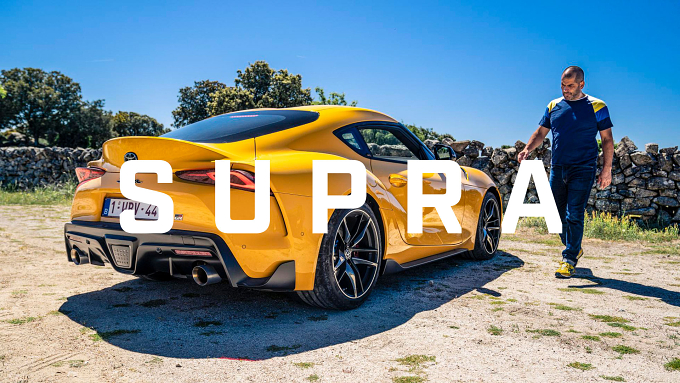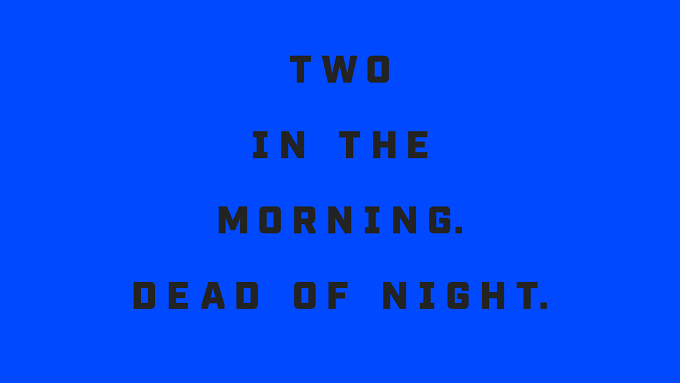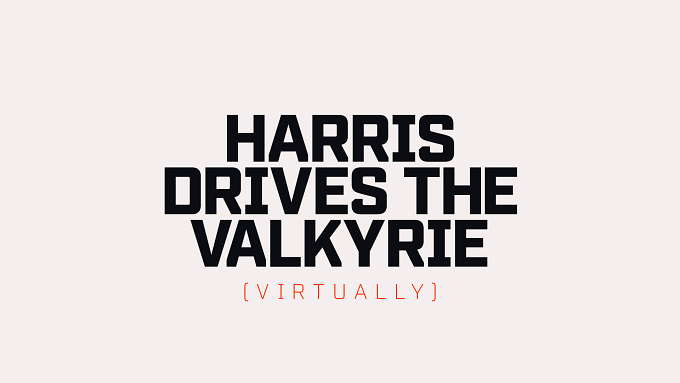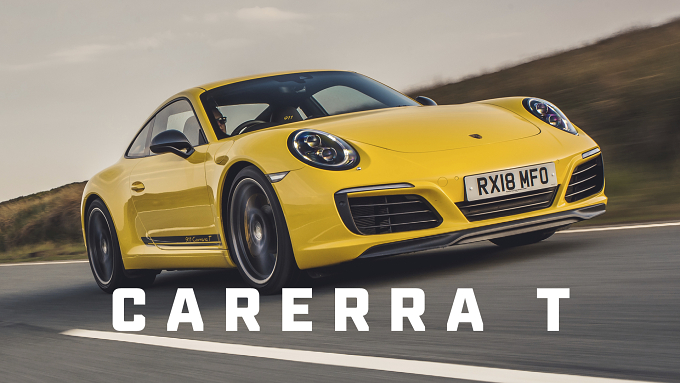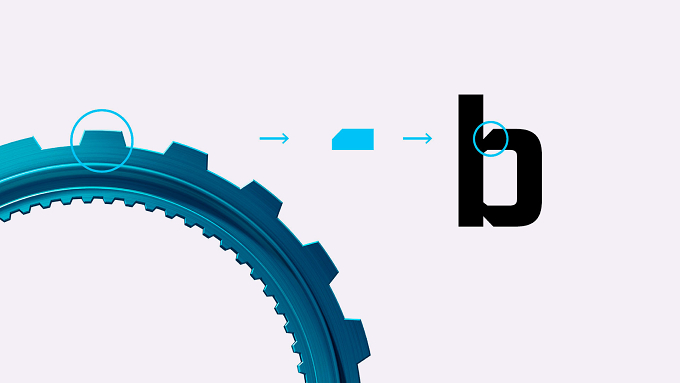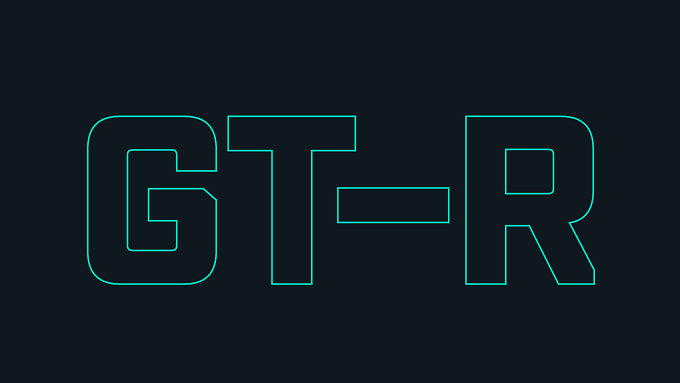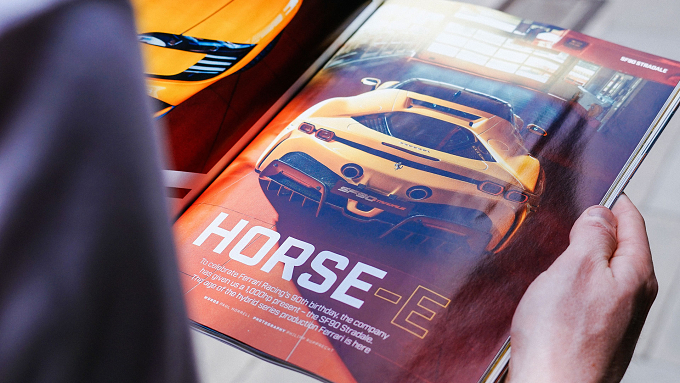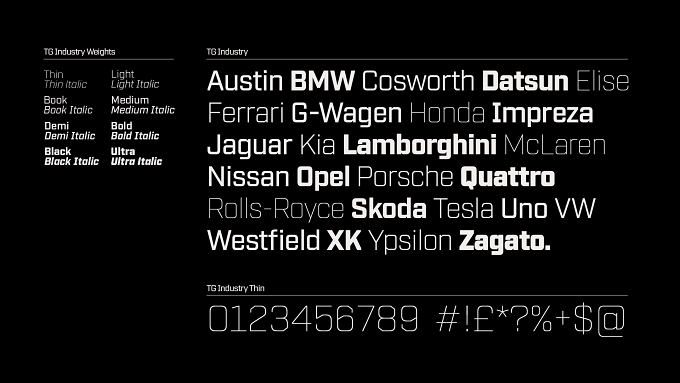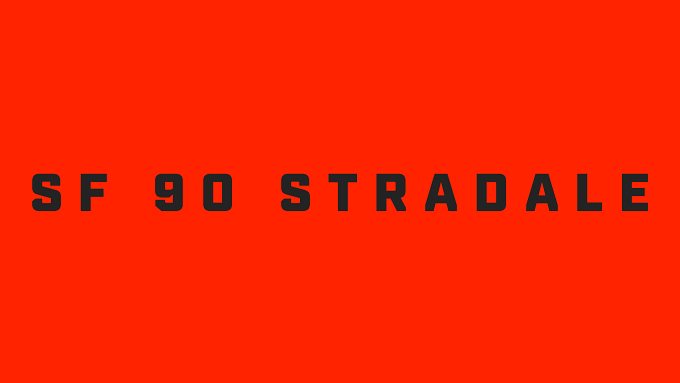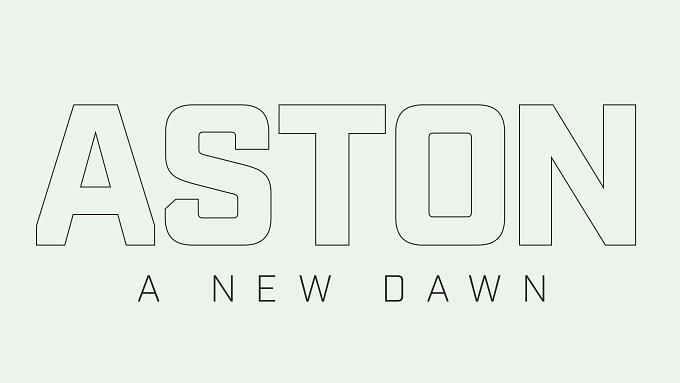
Creating a bespoke typeface inspired by the iconic BBC Top Gear cog.
TG Industry, a global font that signals a new dawn for the Top Gear brand, rolled out across broadcast (TV Show), print (magazine), and will soon roll out across digital (website).
Forged with angular cuts for a precision look.
Forged from angular cuts that reference the mechanical form of the Top Gear cog with aggressive terminals taking influence from the sculpted metallic body surfaces that adorn the modern Hyper-car. Created in close collaboration with Mattox Shuler from Fort Foundry.
Crafted for a vast range of expressions from sleek to refined to cinematic.
A wide range of weights from Thin to Ultra with corresponding italics enables a vast range of tonal expression. At times sleek and reductive with a cinematic quality, yet extremely bold and expressive in other moments, it packs a punch for eye-catching headlines and iconic title sequences. A digital-first typeface crafted to remain highly legible on the smallest of screens.
The result? A typeface that is uniquely Top Gear in attitude and expression that gives the brand a distinct new visual voice.
BBC Top Gear Font